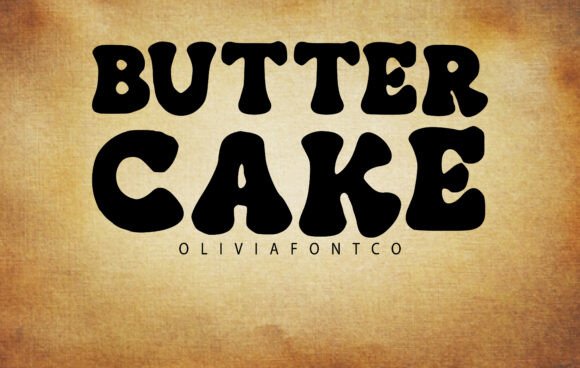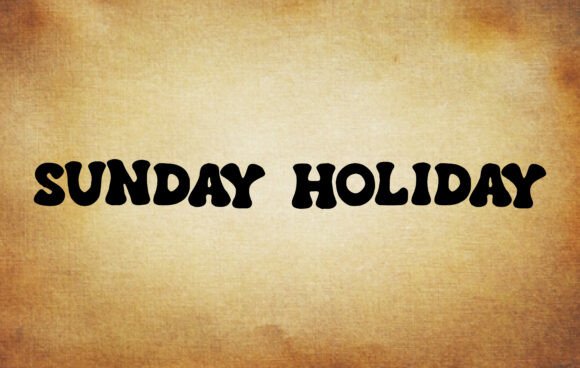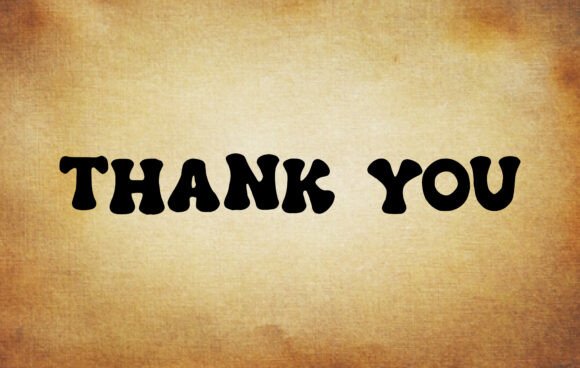
Butter Cake Font
About the Butter Cake Font
The Butter Cake Font is here to transform your projects with its distinctive character and style. This font is designed to be a true favorite and it has the potential to take your creative ideas to the highest level
Butter Cake’s friendly, slightly rounded forms make it ideal for headlines, short paragraphs, and branding applications where approachability is key. It works well on packaging, social media graphics, and invitations, conveying a sense of warmth and approachability. However, its legibility suffers in longer text blocks, making it less suitable for body copy or UI elements.
Pair Butter Cake with a clean sans-serif like Open Sans for a balanced contrast, or a more playful script font like Pacifico for a whimsical feel. For a sophisticated look, consider pairing it with a classic serif such as Garamond. Avoid pairing it with overly geometric or stark fonts, as this will clash with its soft character.
Its overall personality is best described as friendly and approachable, making it a strong choice for brands focused on food, family, or handmade products.
Butter Cake Font Usage Examples
Butter Cake Font Example